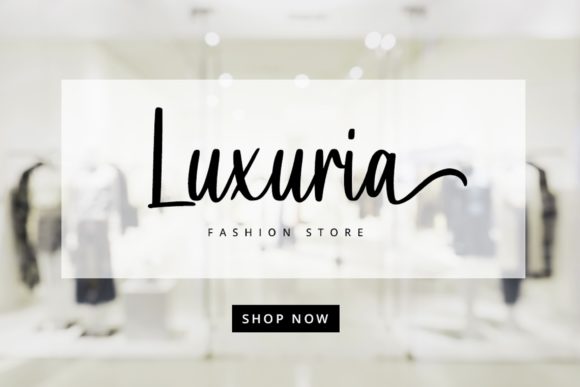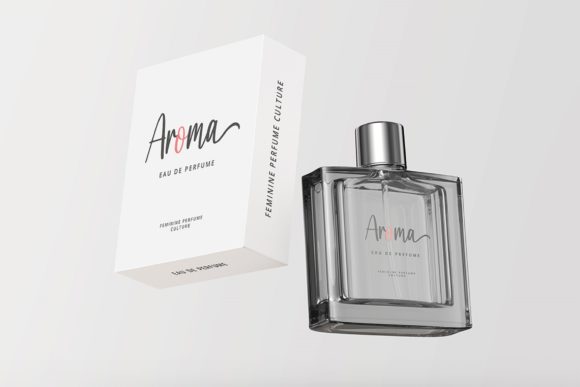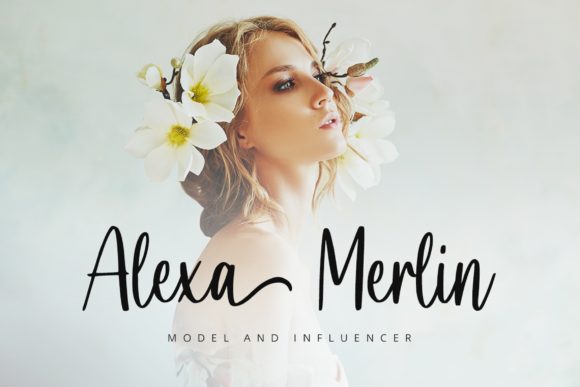
Introduction to Letterose Font
Have you ever stared at a blank canvas, wondering where to begin your next creative project? That’s where the magic happens. For designers, the right font can be the spark that sets their imagination ablaze. And, if you’re looking for that perfect spark, we’ve got just the thing – the Letterose Font. This stunning handwritten font is sure to elevate your designs to new heights.
Imagine being able to add a touch of elegance and sophistication to your work with a single click. With the Letterose Font, you can do just that. Whether you’re working on a personal project or a commercial design, this font is a valuable resource that’s sure to impress. And the best part? It’s available for free download, making it an accessible design resource for designers of all levels.
Key Features of Letterose Font
- High-quality, unique design: Letterose Font offers a distinctive and creative aesthetic, making it perfect for designers working on innovative projects.
Honest Review: Letterose Font
I recently had the chance to work with the Letterose Font, and I must say it’s been a game-changer for my creative project. The high quality of this font has impressed me, and I appreciate the fact that it’s available for free download, making it an excellent design resource for anyone looking to add a touch of elegance to their work.
- ✨ High quality: The Letterose Font is well-designed and looks great on various backgrounds, including transparent backgrounds.
- ✨ Versatile: It’s suitable for a wide range of creative projects, from logos to typography-heavy designs.
However, I do have a few minor issues with the font:
- ⚠️ Limited character set: The Letterose Font only includes a limited character set, which may not be suitable for projects that require a wide range of characters.
- ⚠️ Not ideal for small text: While the font looks great at larger sizes, it may not be the best choice for small text due to its relatively thin lines.
Overall, I’m very impressed with the Letterose Font. Its high quality, versatility, and ease of use make it an excellent choice for any design project. While it may have some limitations, I believe it’s well worth the free download and a great addition to any design resource collection.
Tips for Getting the Most Out of Letterose Font
To get the most out of Letterose Font, use it on a transparent background to create a high-quality design. You can also experiment with different font sizes and styles to add visual interest to your design project.
Common Use Cases for Letterose Font
Letterose Font is commonly used in creative projects such as logos, business cards, and brochures. Its high-quality design makes it a popular choice for designers looking for a unique and eye-catching font.